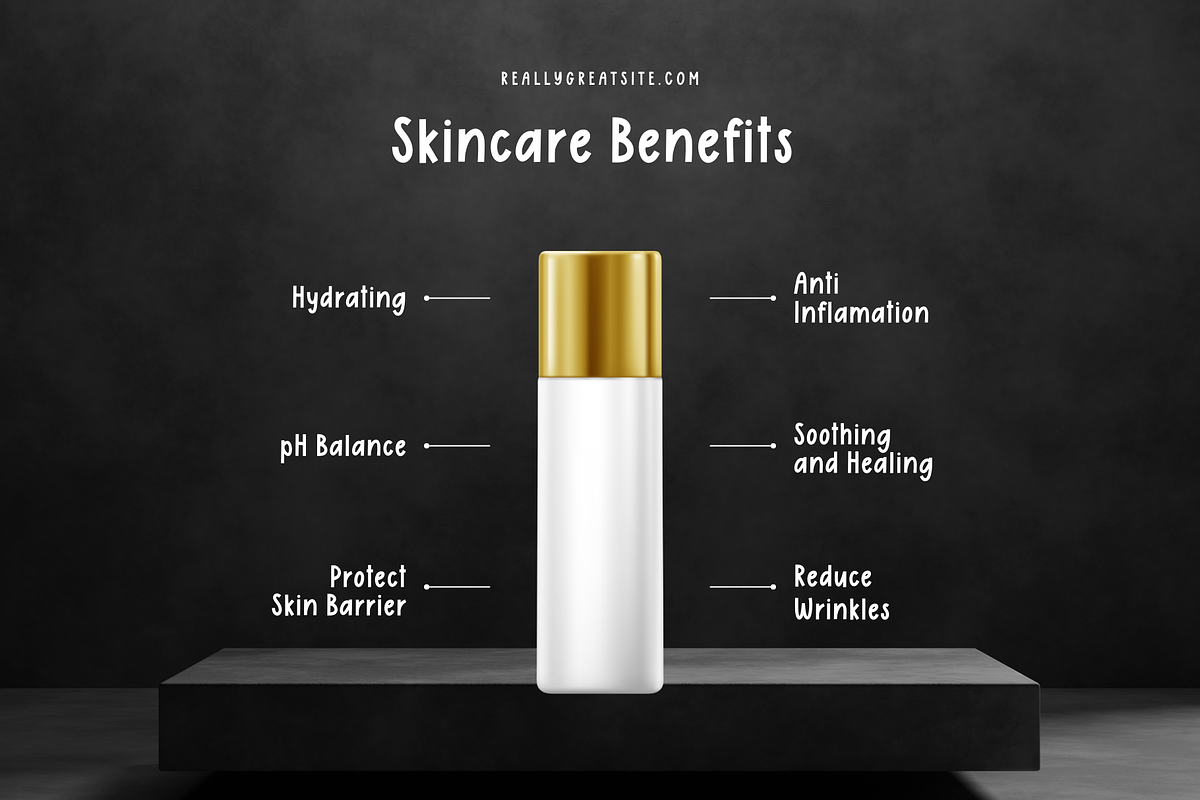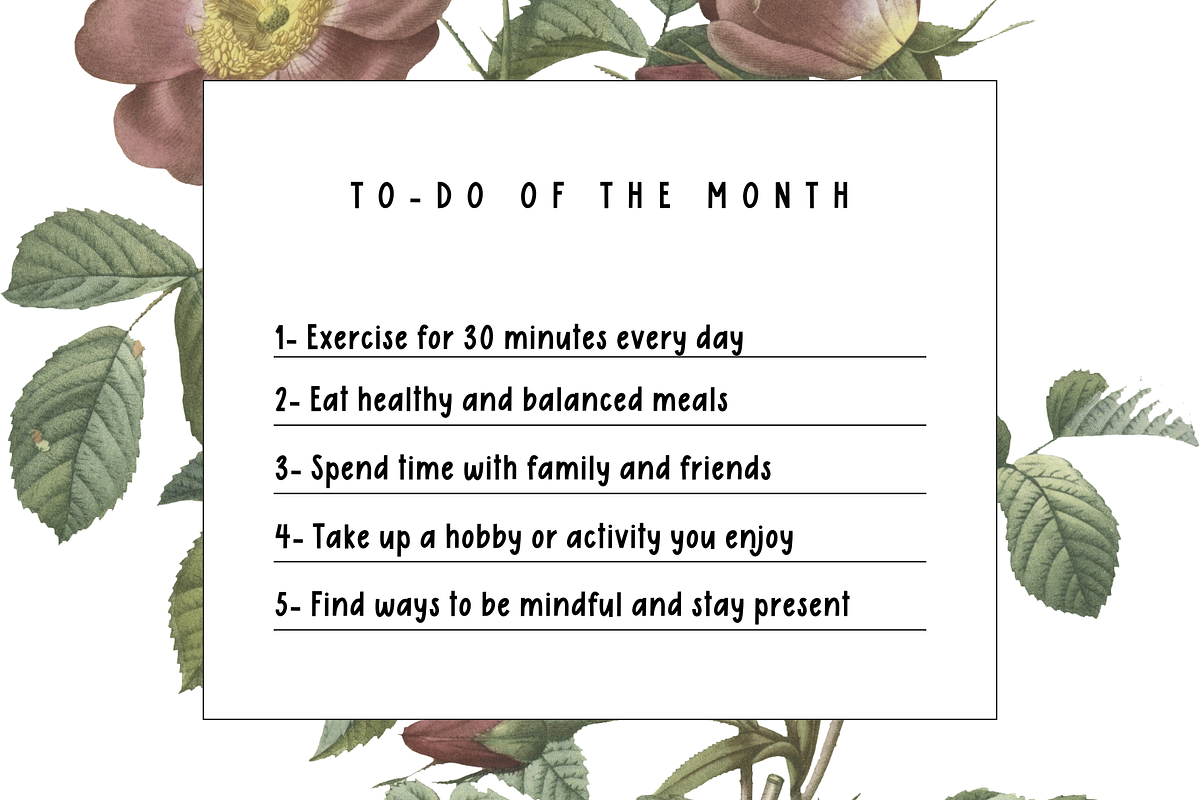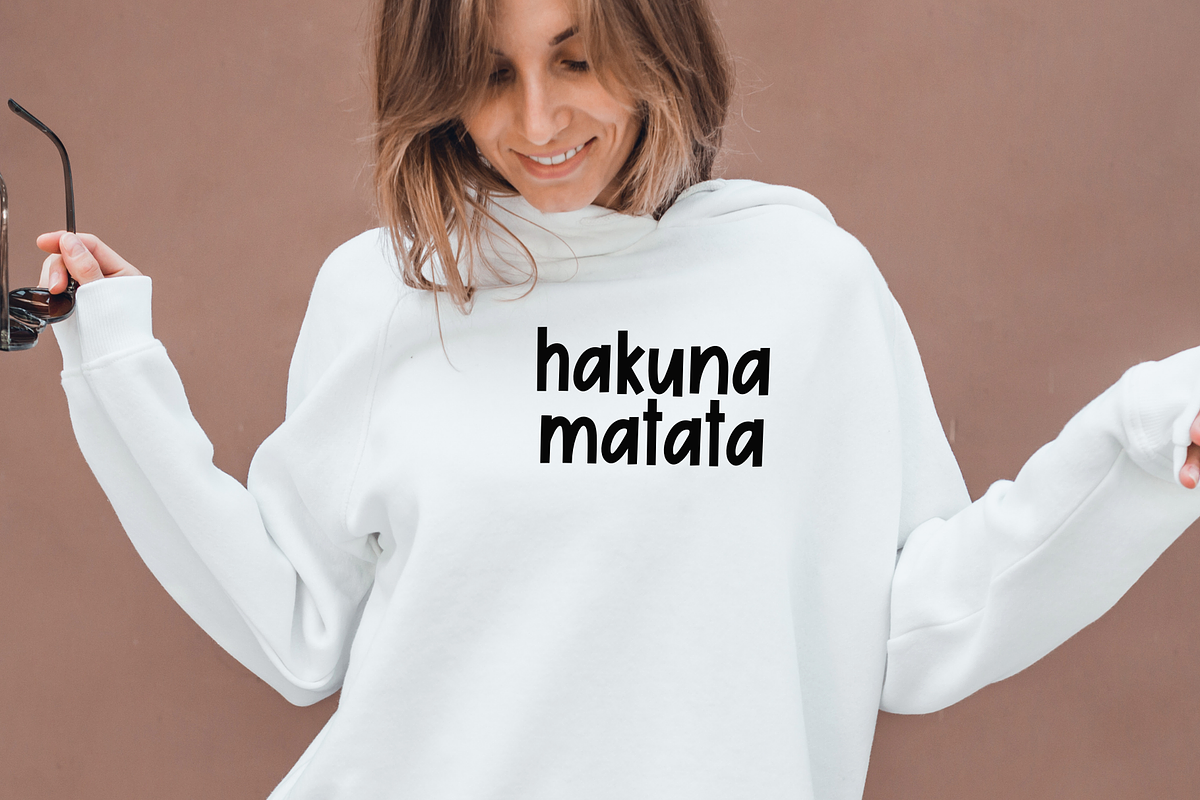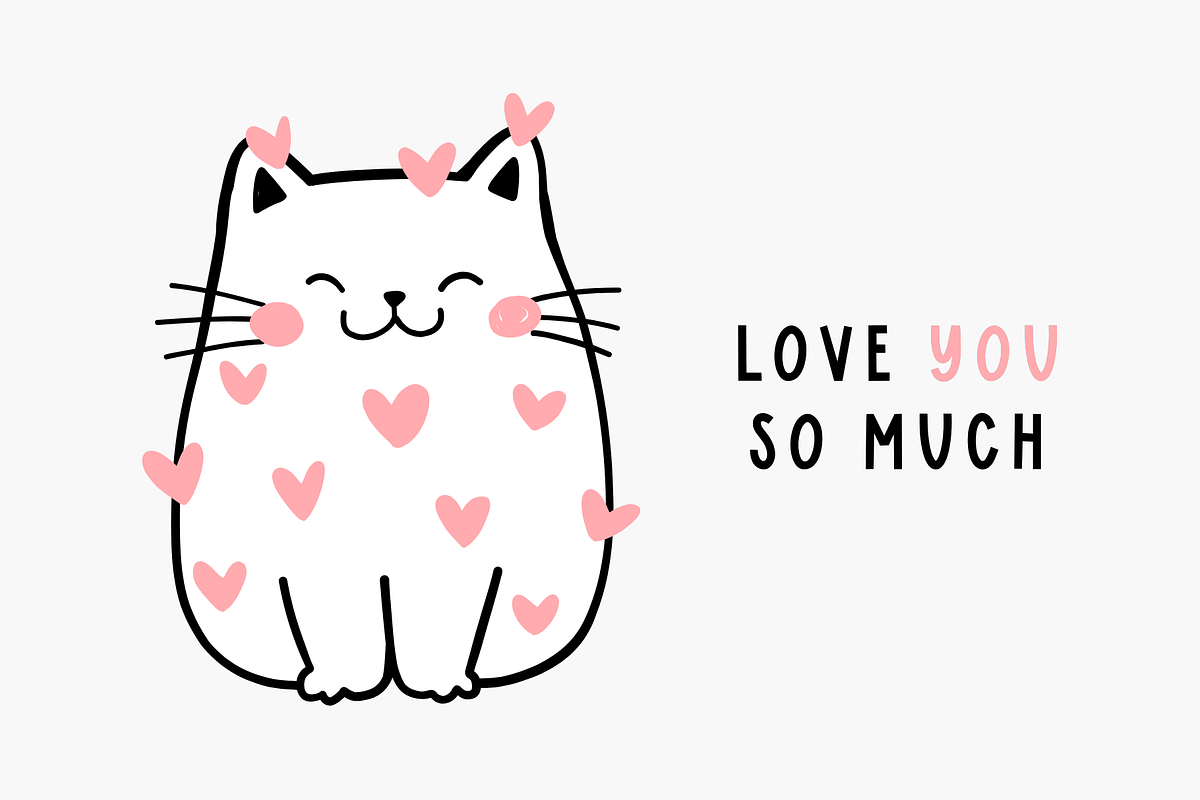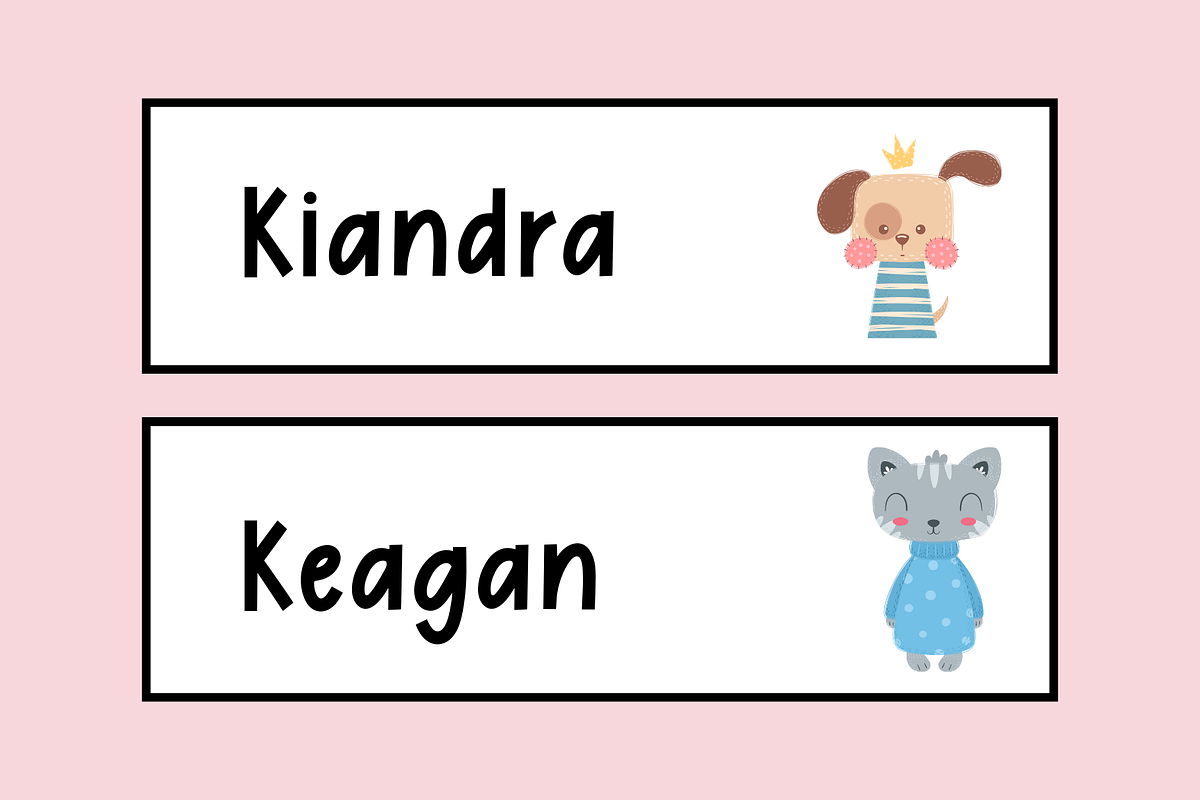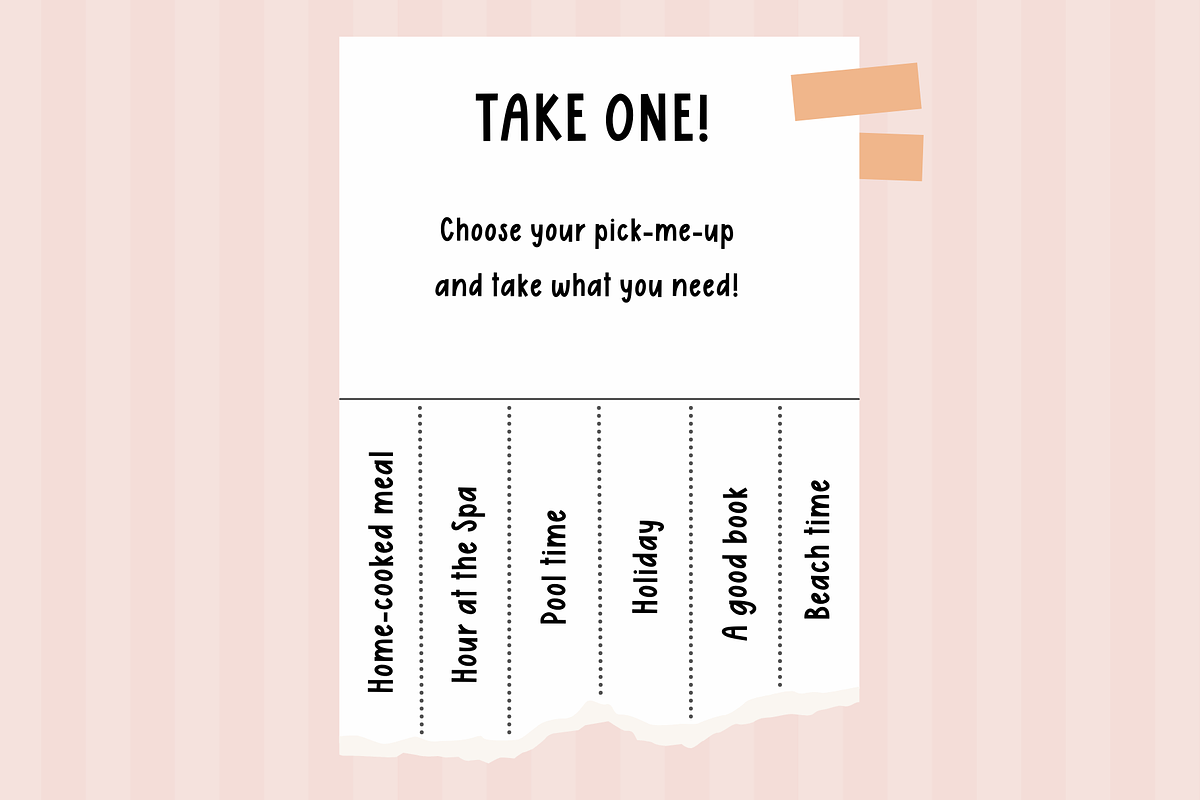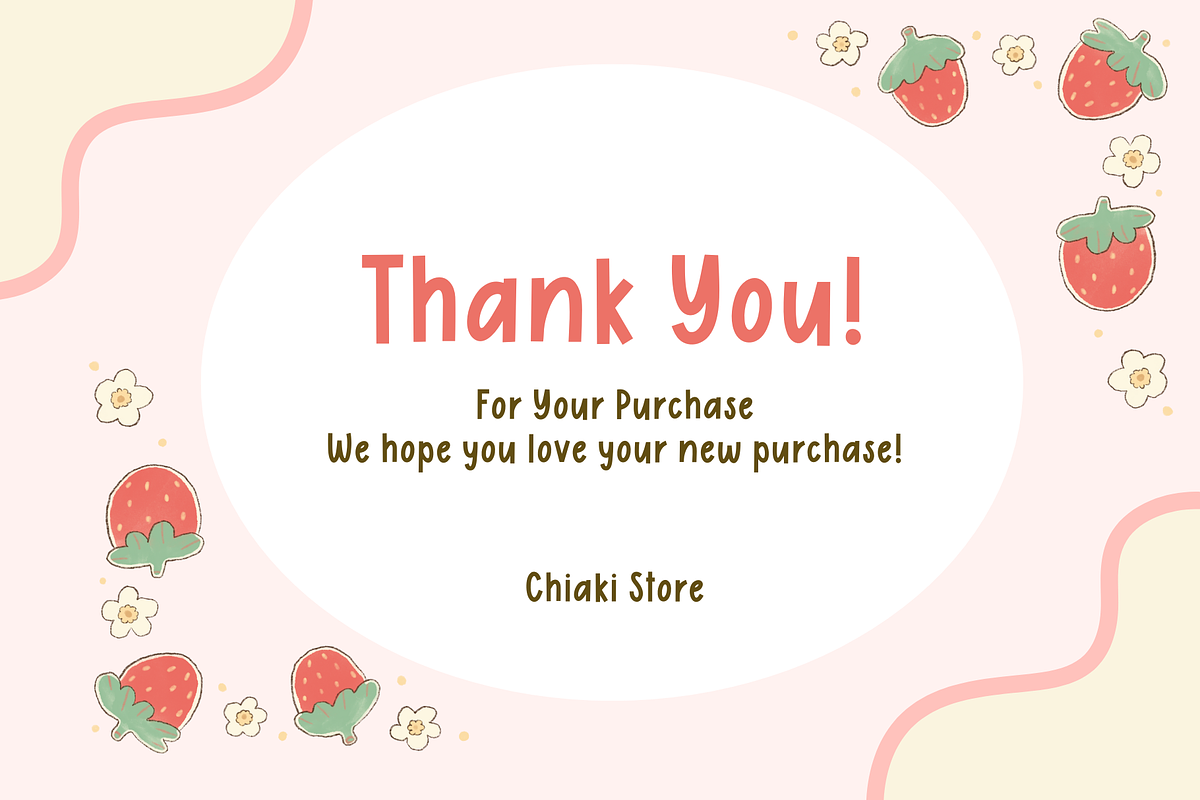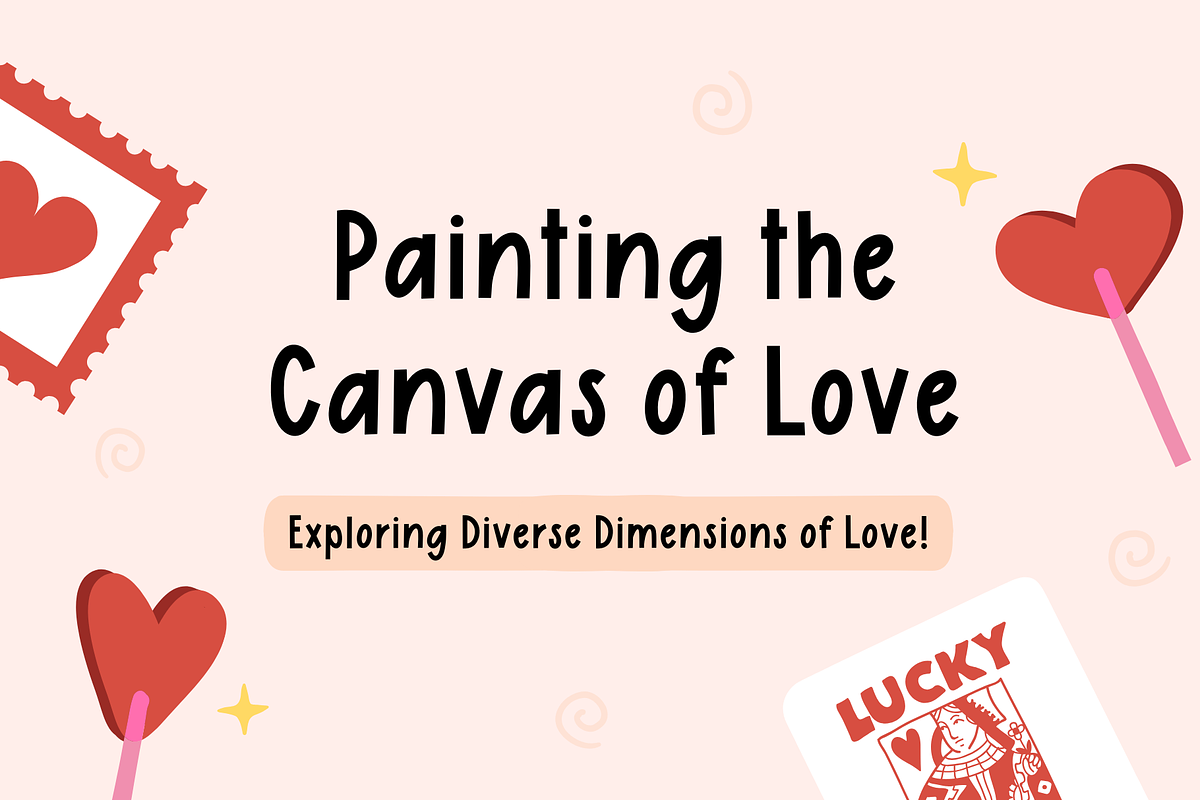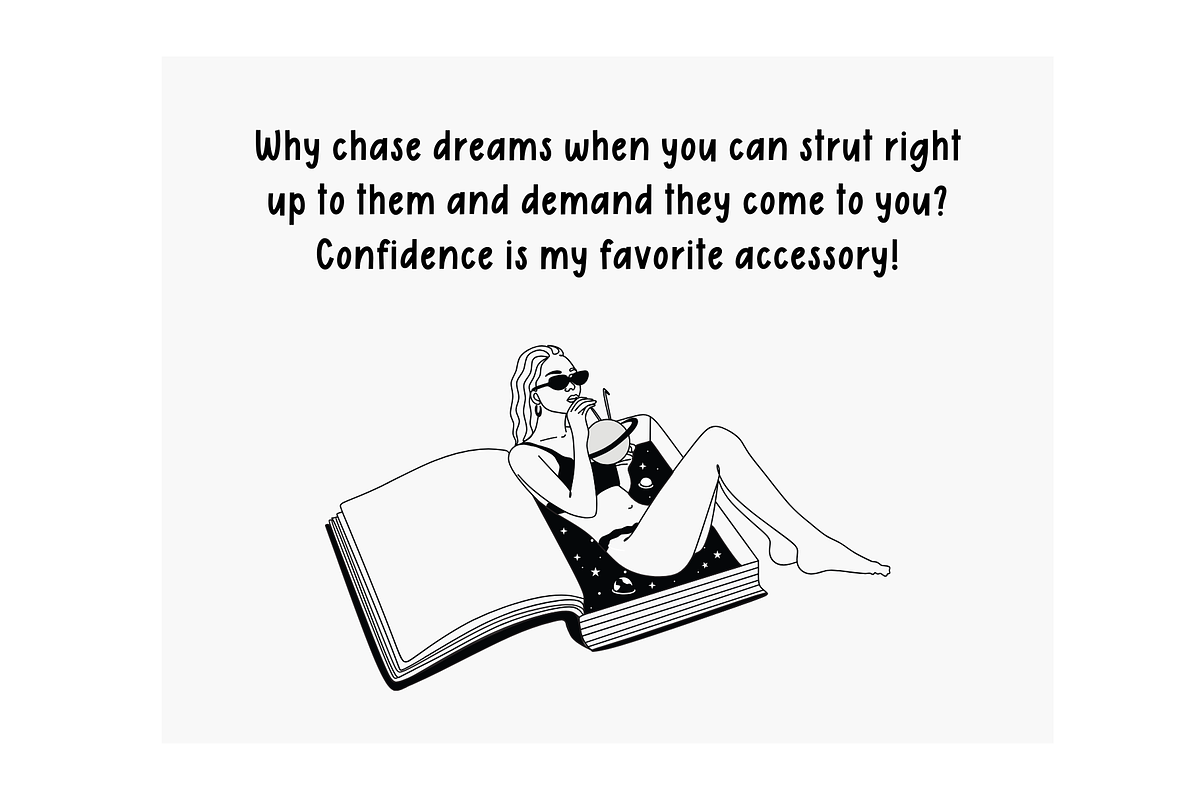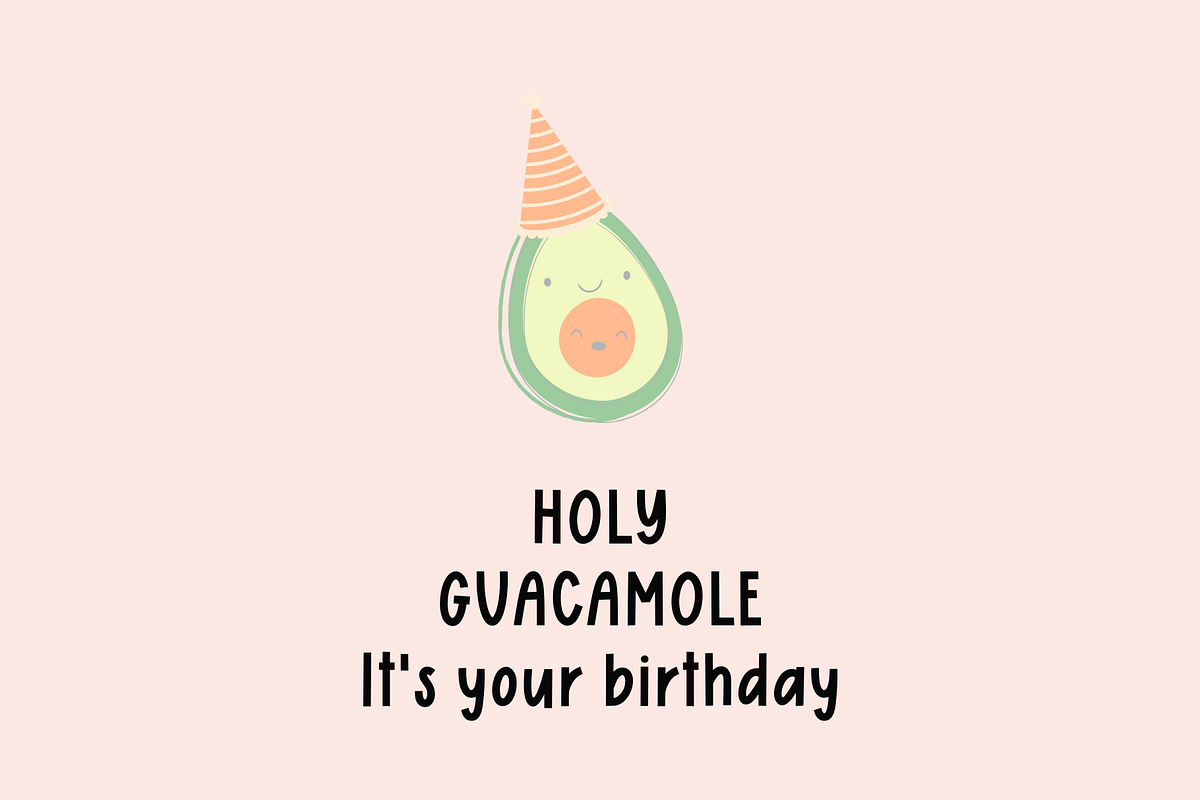
Green Lemonade Font
Cute, handwritten font to create logos, branding, notebooks, journals, labels, stickers, blogs, quotes, greeting cards, tea towels, apparel, pillows, mugs, toys, posters, baby clothing, picture books and so much more... basically anything that requires a cute and fun look! 😍